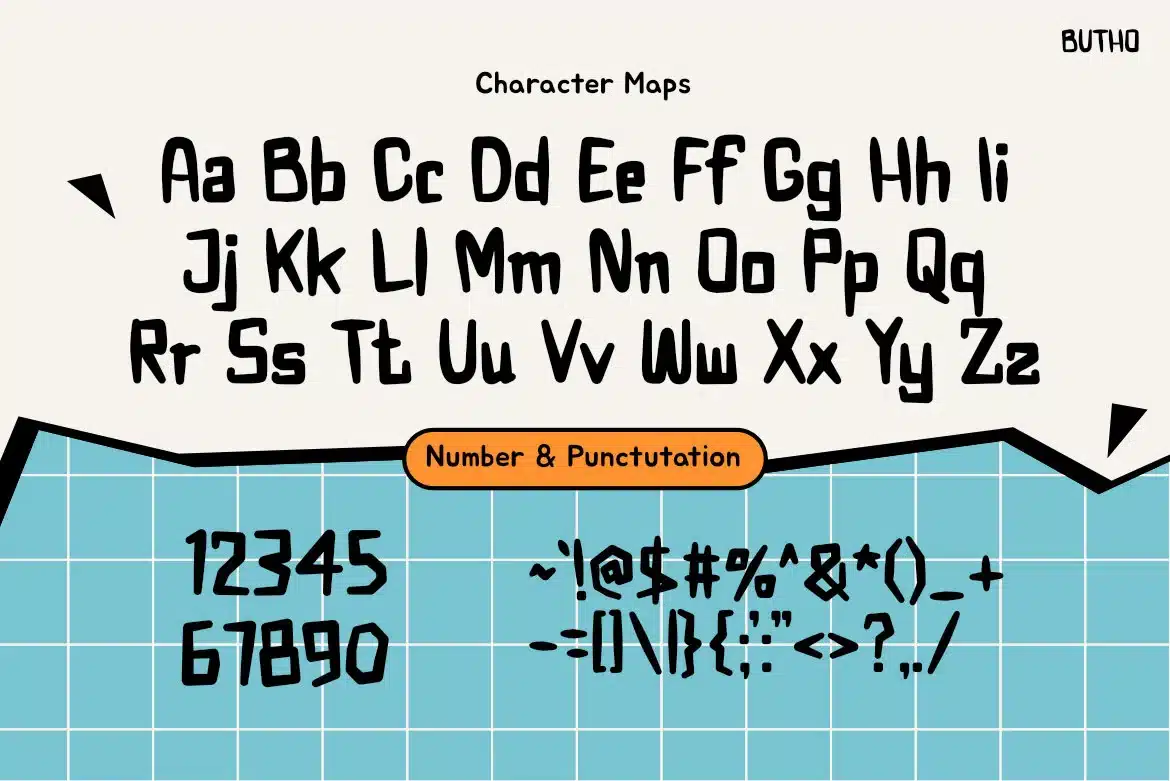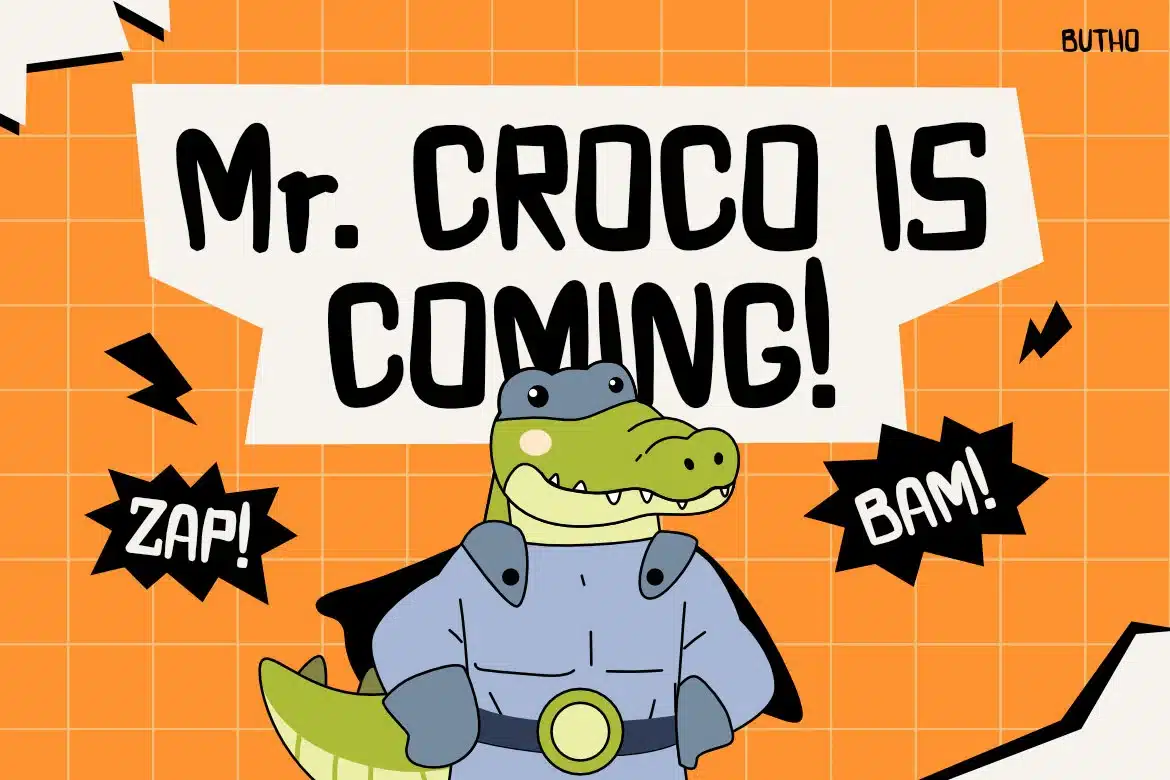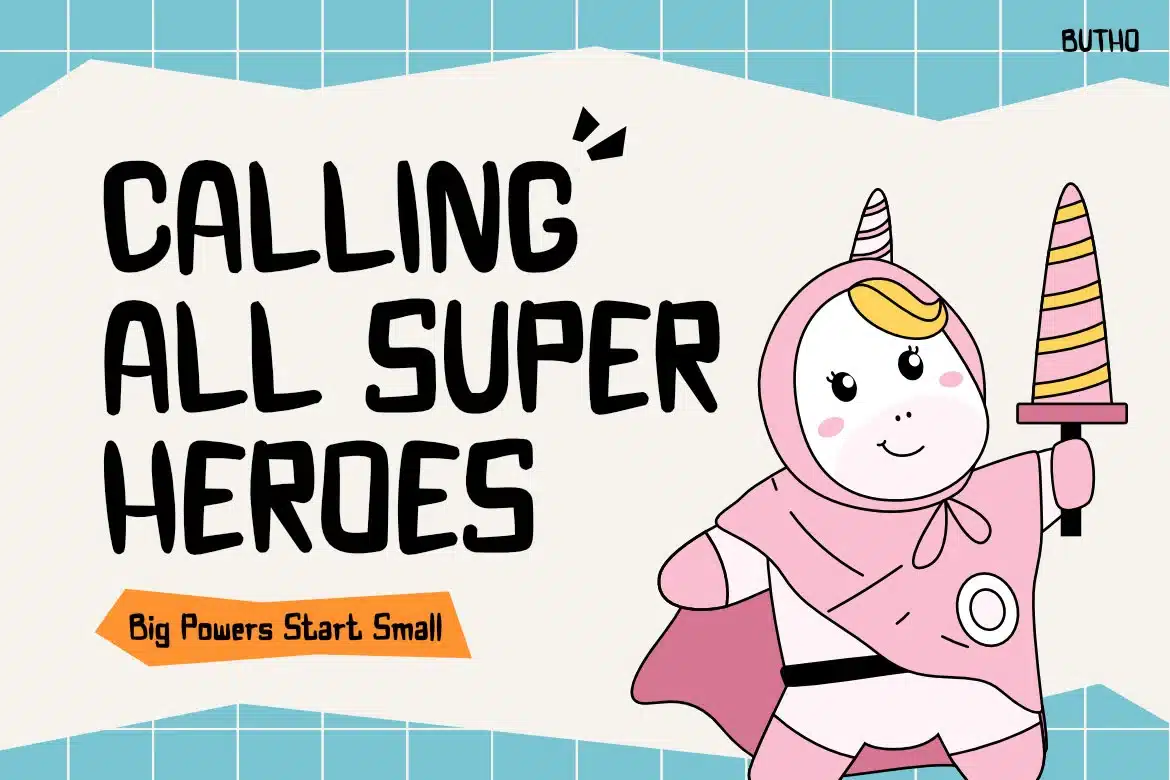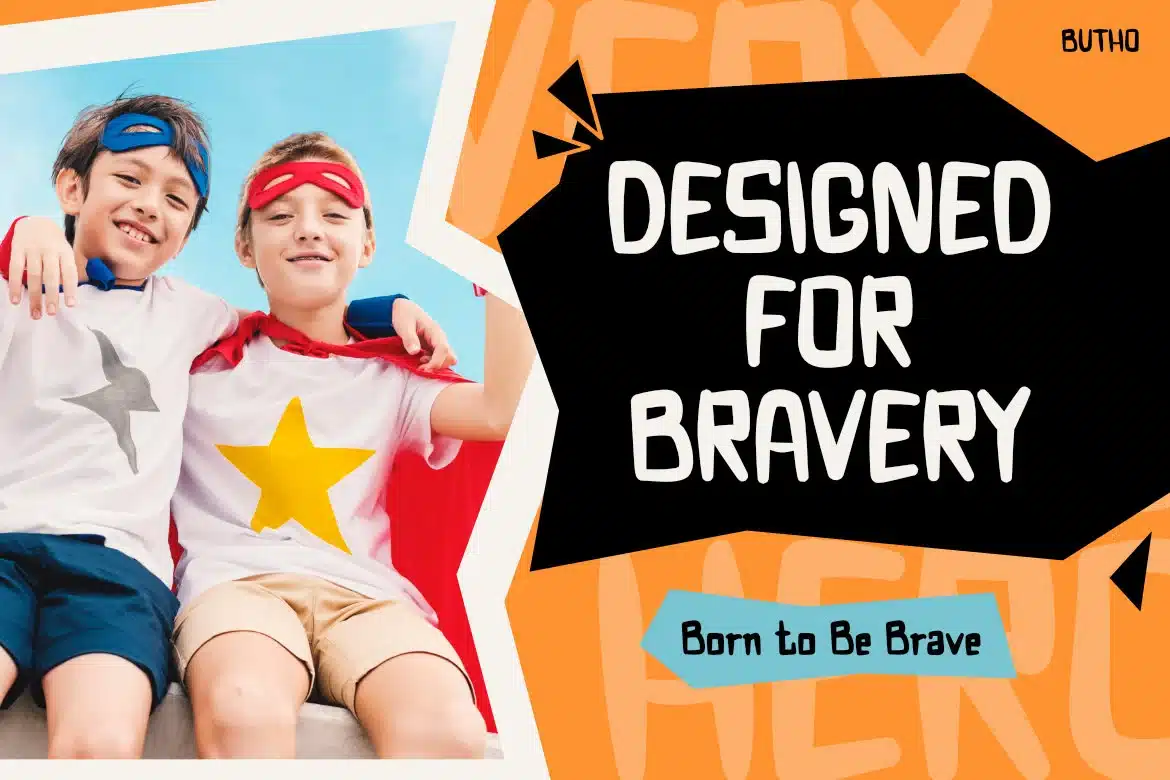
Butho – Fun Comic Display Font
BUTHO – Fun Comic Display Font
BUTHO is a bold kids display typeface built for superhero-themed visuals and playful storytelling, combining chunky letterforms, firm strokes, and slightly irregular proportions that bring action and character to every word. Its vibe is strong, playful, and energetic, perfectly aligned with kids entertainment, comic-style branding, and imaginative campaigns. The rounded yet sturdy structure keeps the letters friendly while maintaining a confident presence that reads clearly at large sizes.
BUTHO is ideal for kids branding, posters, packaging, toy designs, book covers, and social media graphics, where impact and personality are essential.
BUTHO is designed for creators who want typography that feels brave, fun, and full of adventure. It helps brands speak directly to children through bold headlines that feel heroic rather than childish. Perfect for branding, posters, kids books, packaging, games, and playful editorials, BUTHO supports attention-grabbing layouts that spark imagination and confidence. It turns simple messages into bold calls to action—just like a superhero slogan.
Key Features :
Chunky & Confident Letterforms
- Thick strokes ensure high visibility
- Bold structure supports energetic headlines
Superhero-Inspired Personality
- Playful proportions add character and motion
- Works well with illustrations and comic layouts
Creative & Commercial Versatility
- Ideal for kids branding, toys, packaging, and events
- Strong fit for posters, merchandise, and social media
Clear & Readable Impact
- Designed for large-scale display use
- Maintains clarity across print and digital formats
Unleash bold energy and fearless fun with BUTHO.
Perfect for designers, illustrators, educators, and kids brand creators—use it now to power up your next project with heroic impact.